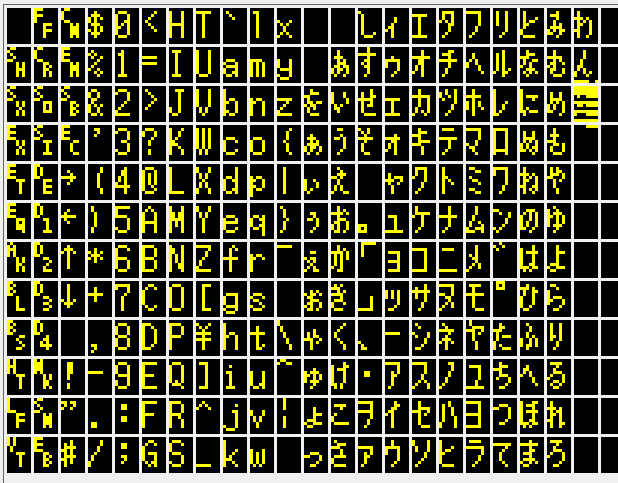
If anyone else wants to extend this with the Japanese letters or tackle the other sizes use IPLROM.DAT with Binxelview in 8 width, 12 height, reverse byte 1 bit per pixel, start at 1D019.
The other character sizes can be found in CGROM.DAT with similar settings - start with 16x16 and also try 24x24.
This is not the font in screenshots. From my notes: underleading, narrow capitals, transverse terminals but oblique, unstubbed b d g m n p q r, disfusables, uniform G, ?straiht Q intersect, convergent K, but a tail, but B D serifs, but squat descender bodies, but one-width.
If anyone else wants to extend this with the Japanese letters or tackle the other sizes use IPLROM.DAT with Binxelview in 8 width, 12 height, reverse byte 1 bit per pixel, start at 1D019.
The other character sizes can be found in CGROM.DAT with similar settings - start with 16x16 and also try 24x24.
This is not the font in screenshots. From my notes: underleading, narrow capitals, transverse terminals but oblique, unstubbed b d g m n p q r, disfusables, uniform G, ?straiht Q intersect, convergent K, but a tail, but B D serifs, but squat descender bodies, but one-width.
This does look like the SX-Window font tho.
This is wonderful and very appreciated, but the colon and semi-colon symbols seem to be the wrong way round (typing : results in ;).
Now fixed.